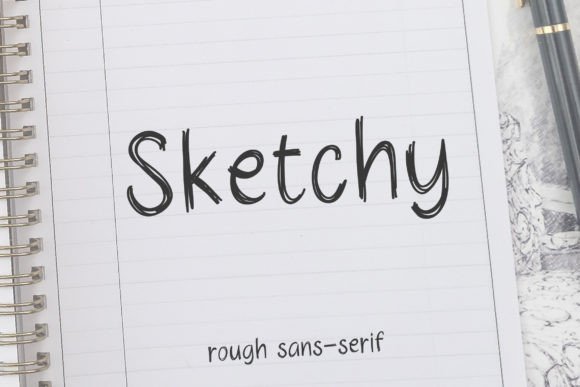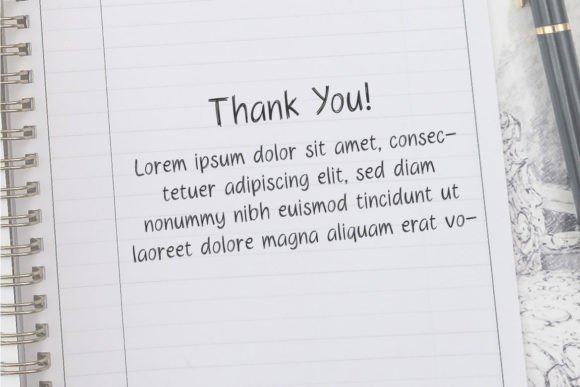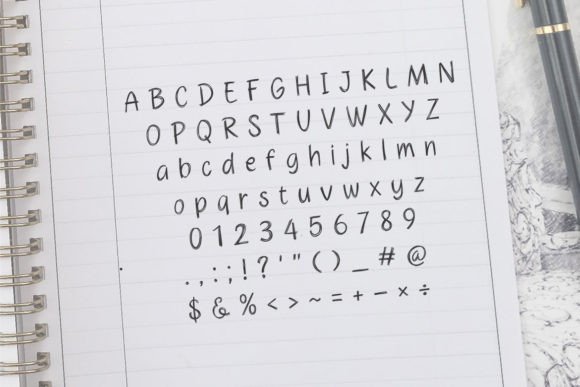
Sketchy Font
About Sketchy Font
Sketchy is a script font that is written in pencil look-a-like. Sketchy has a rough and thin look. This font is perfectly suited for writing a quote, note, book title, logo, music cover, and many more.